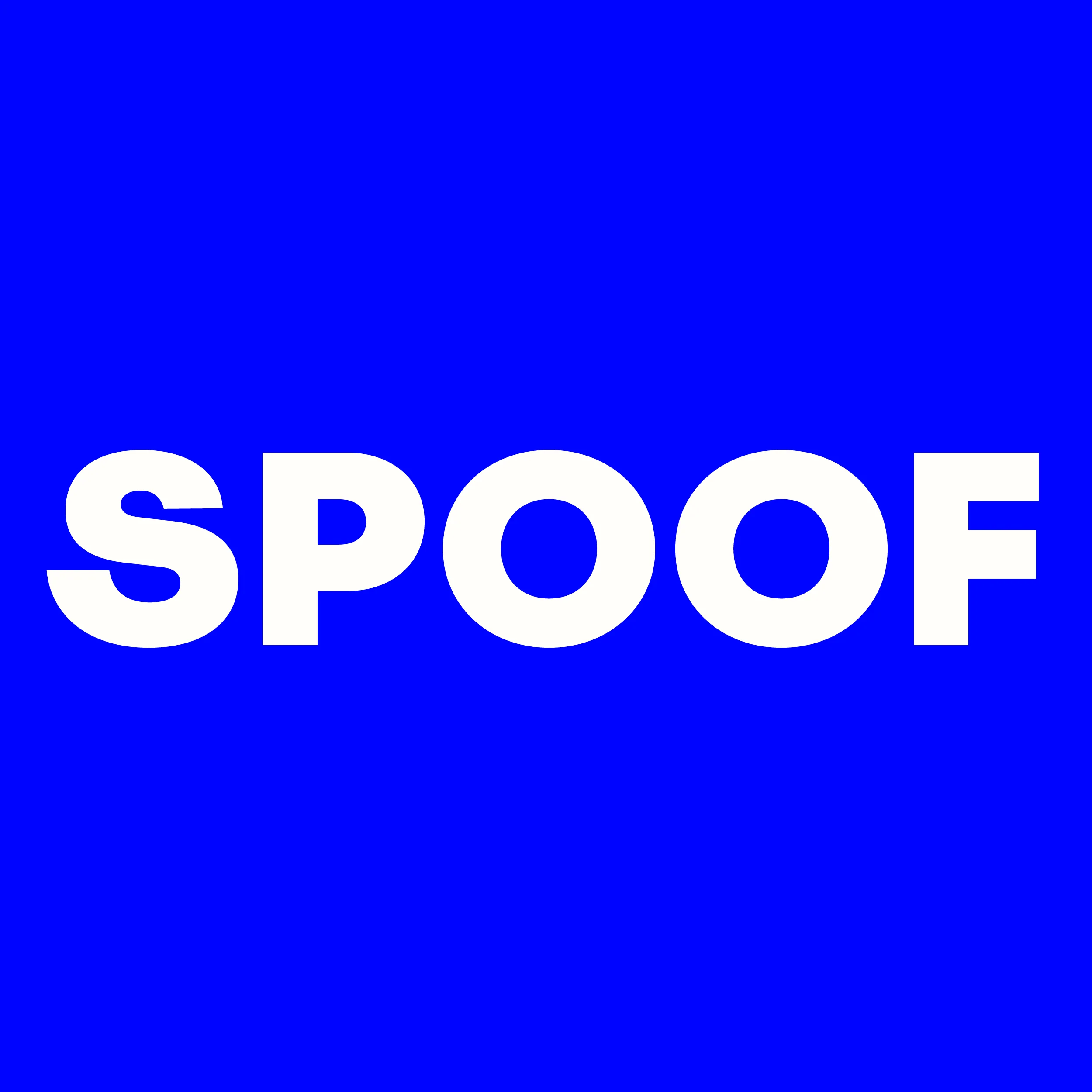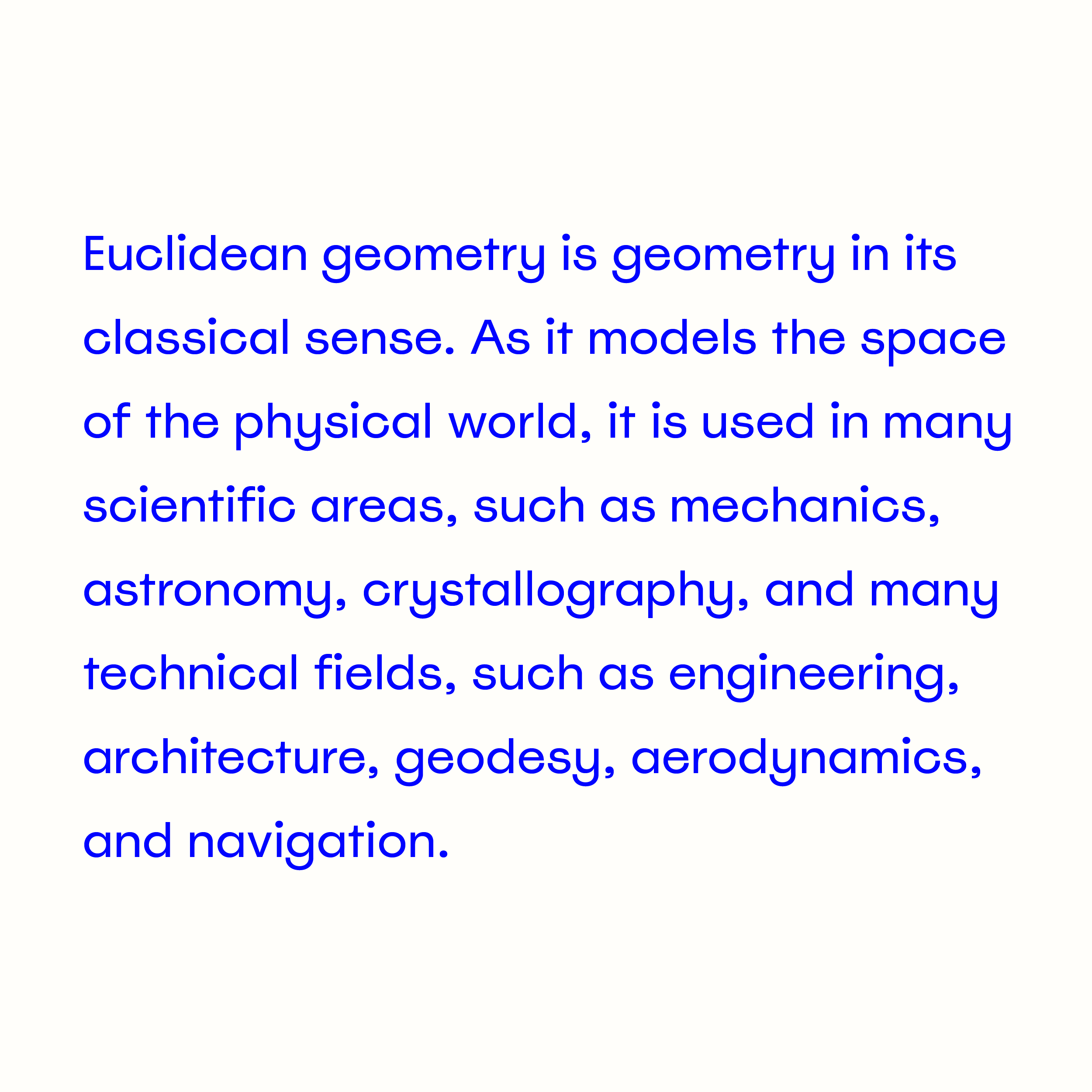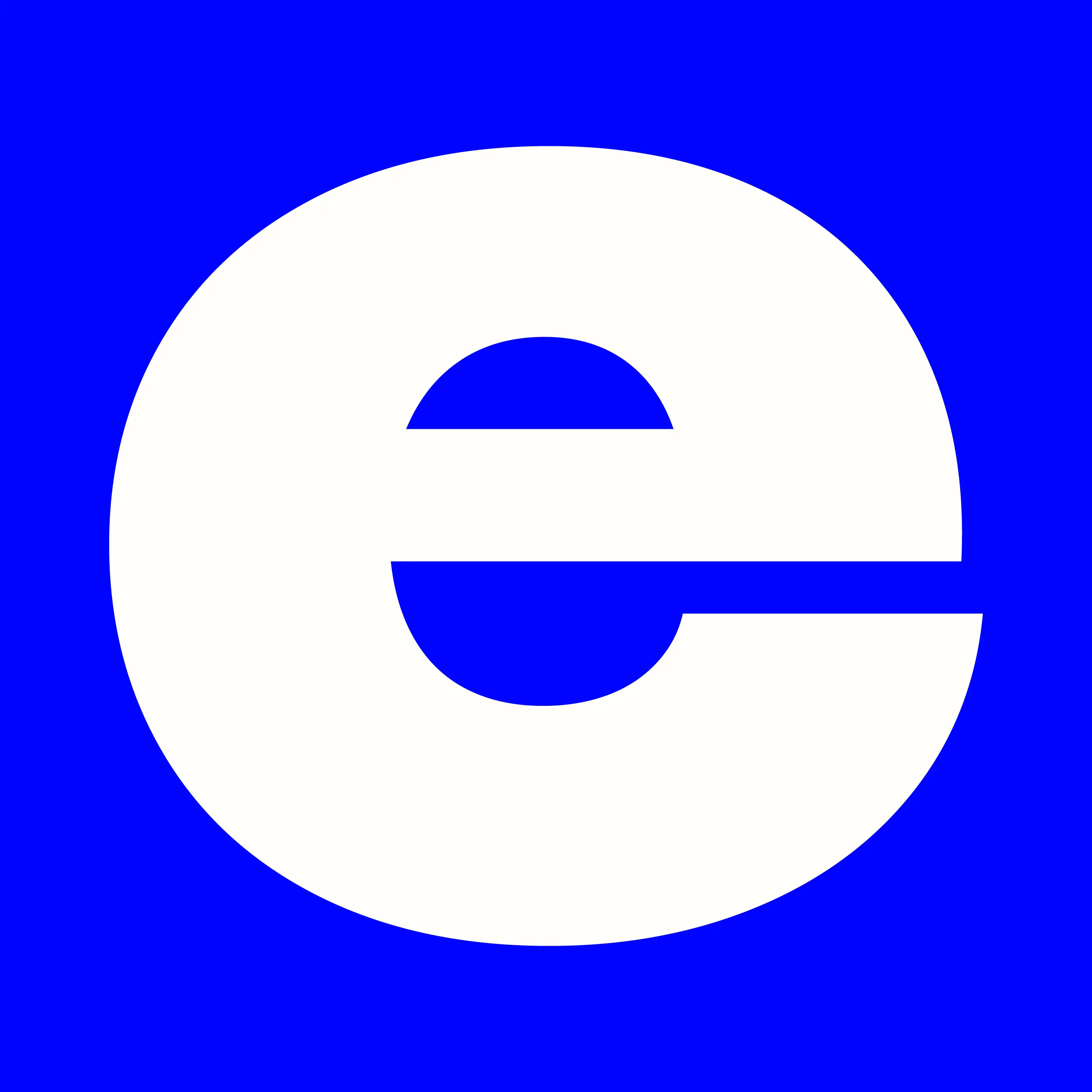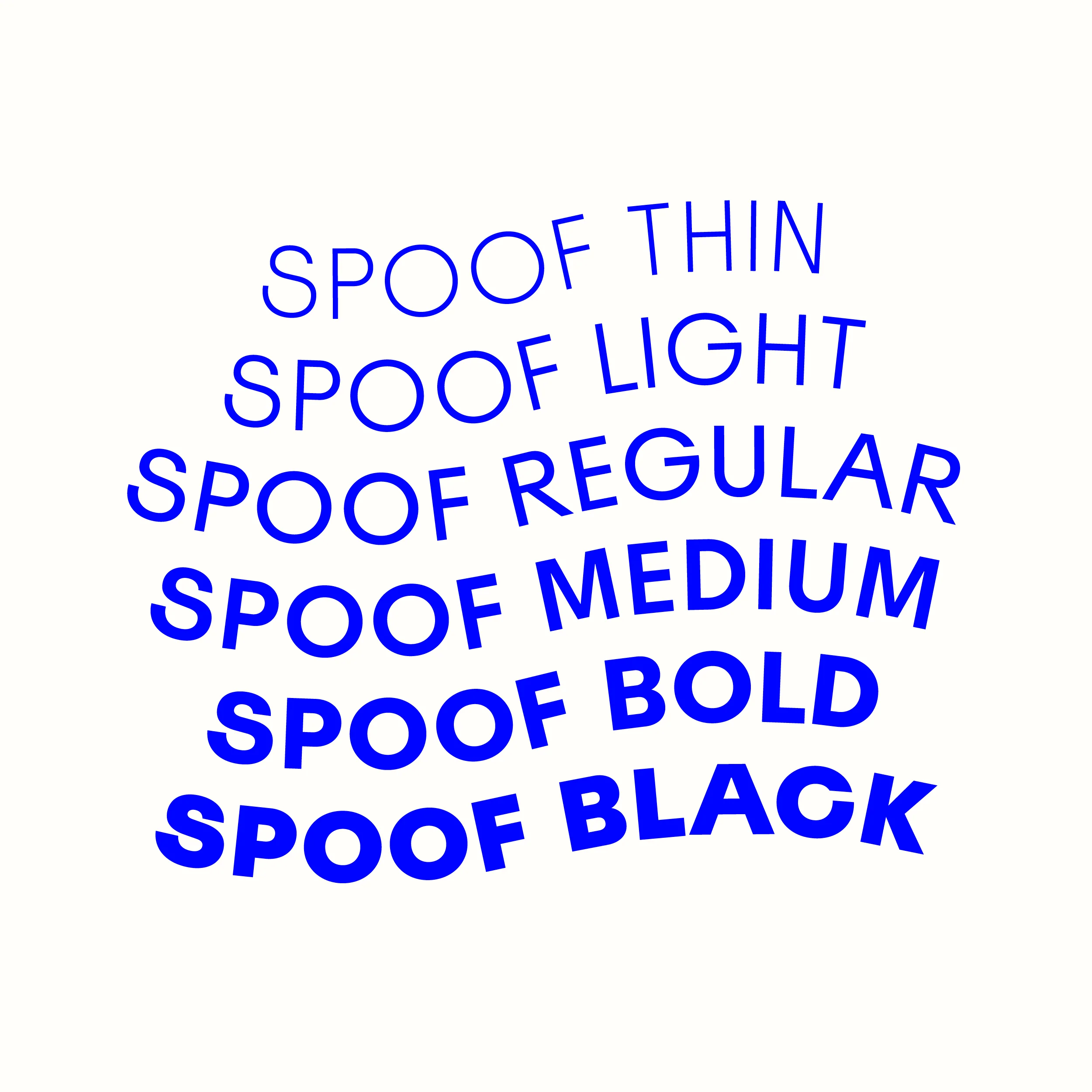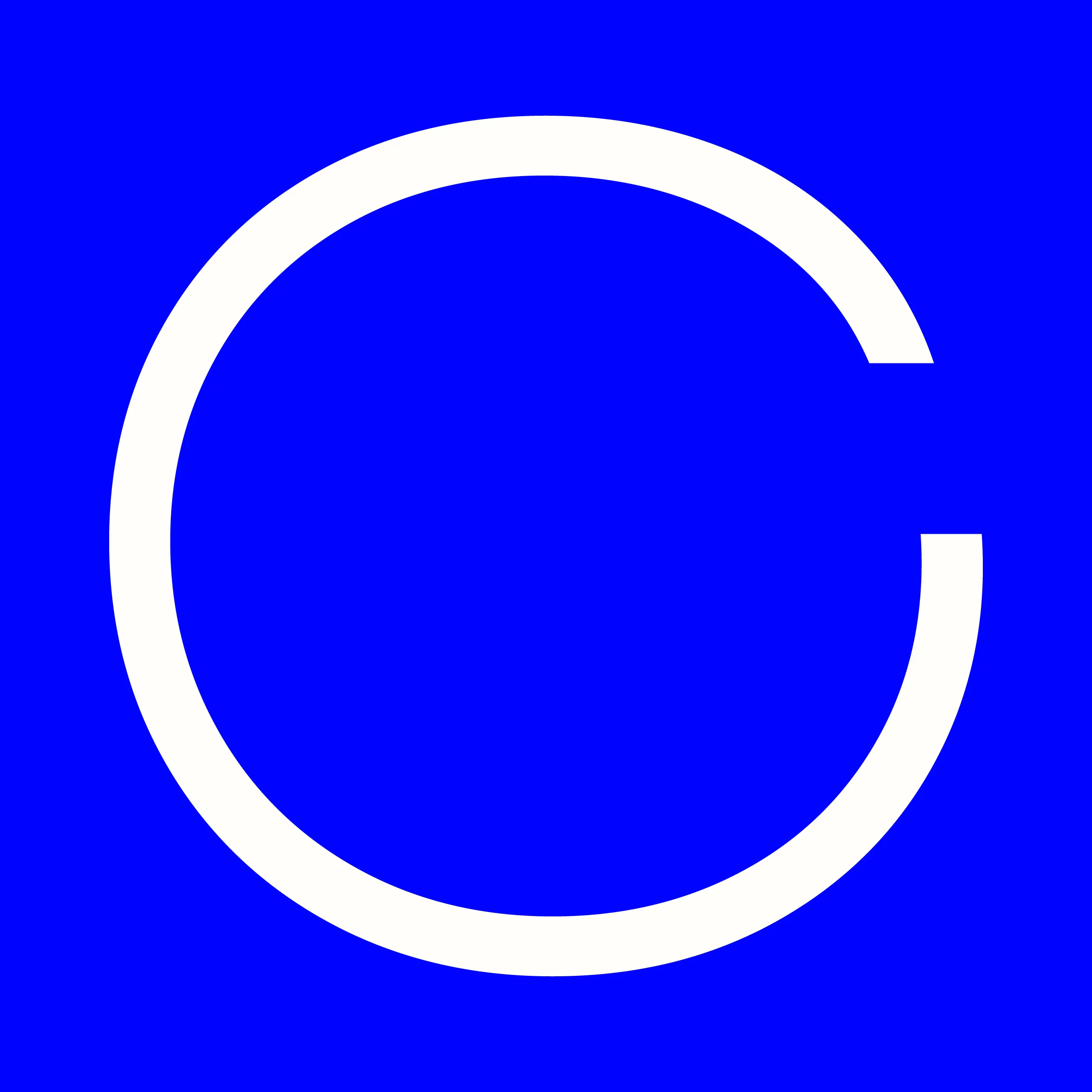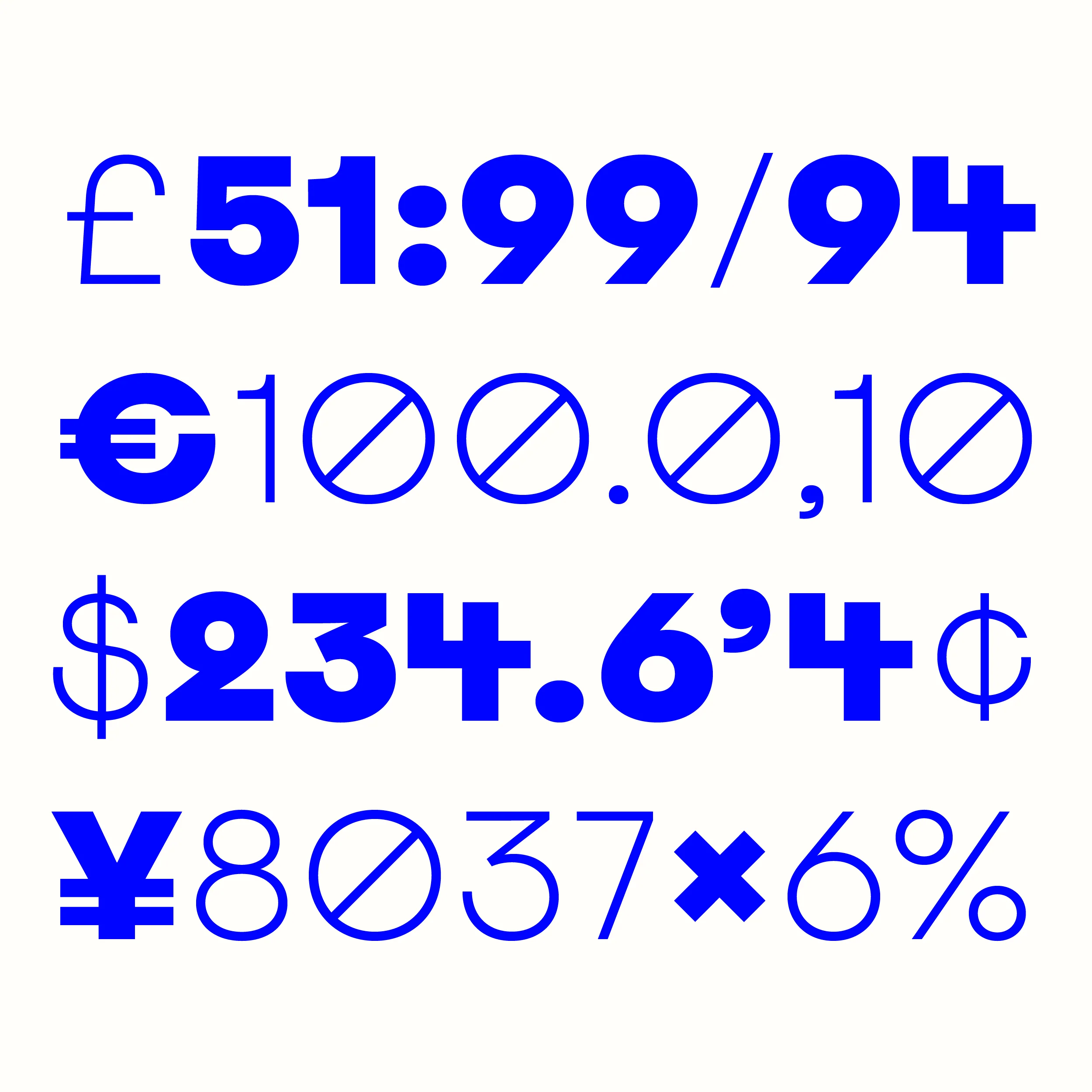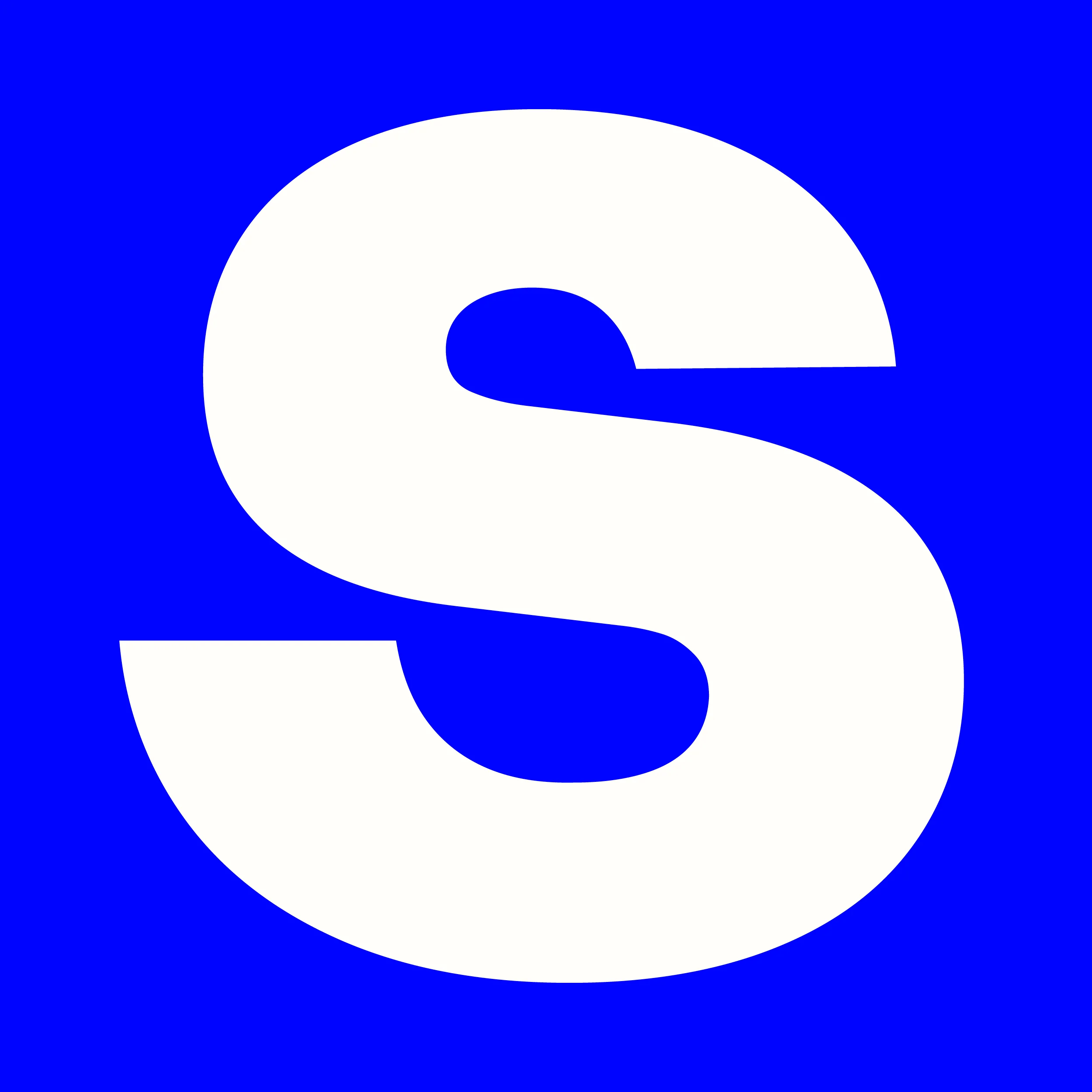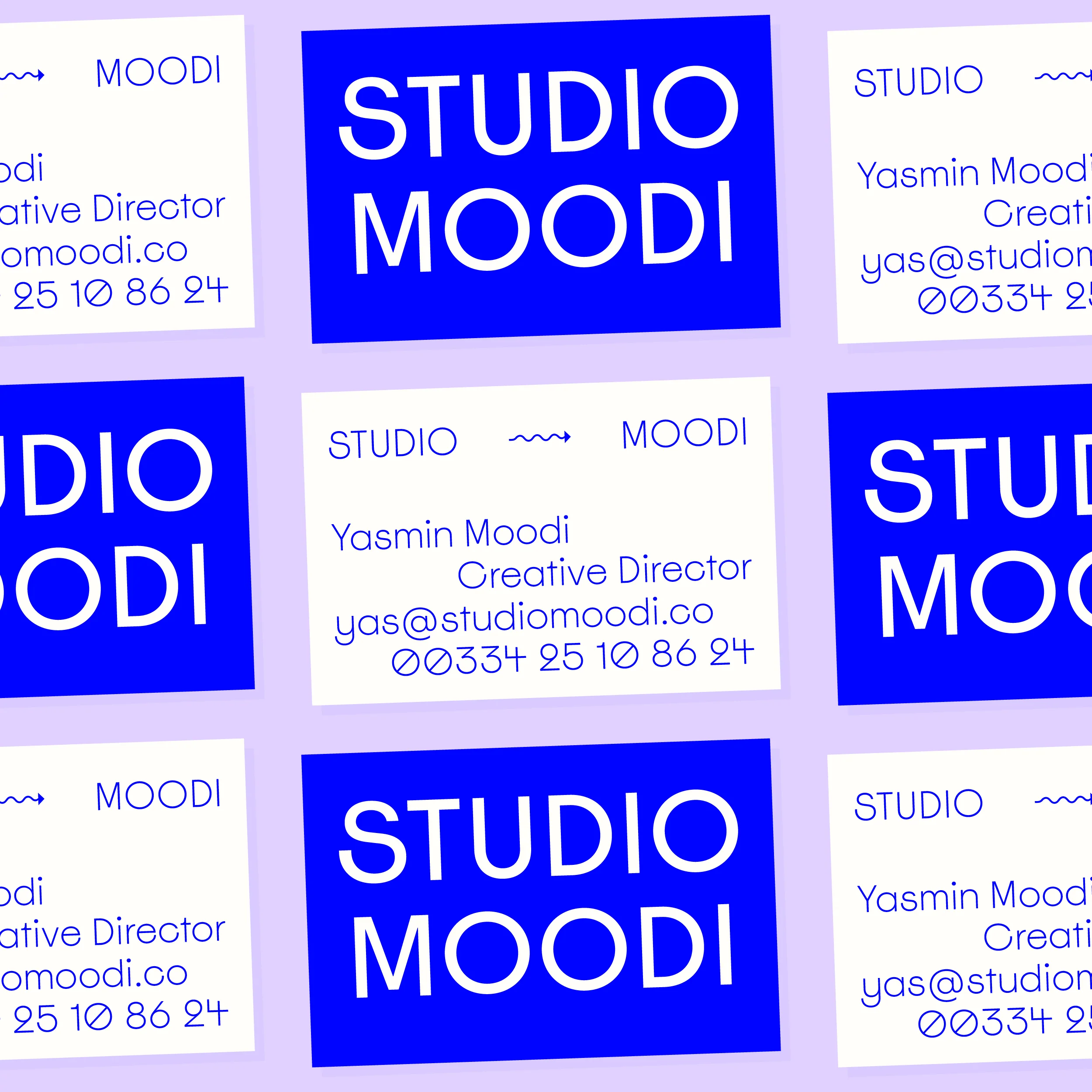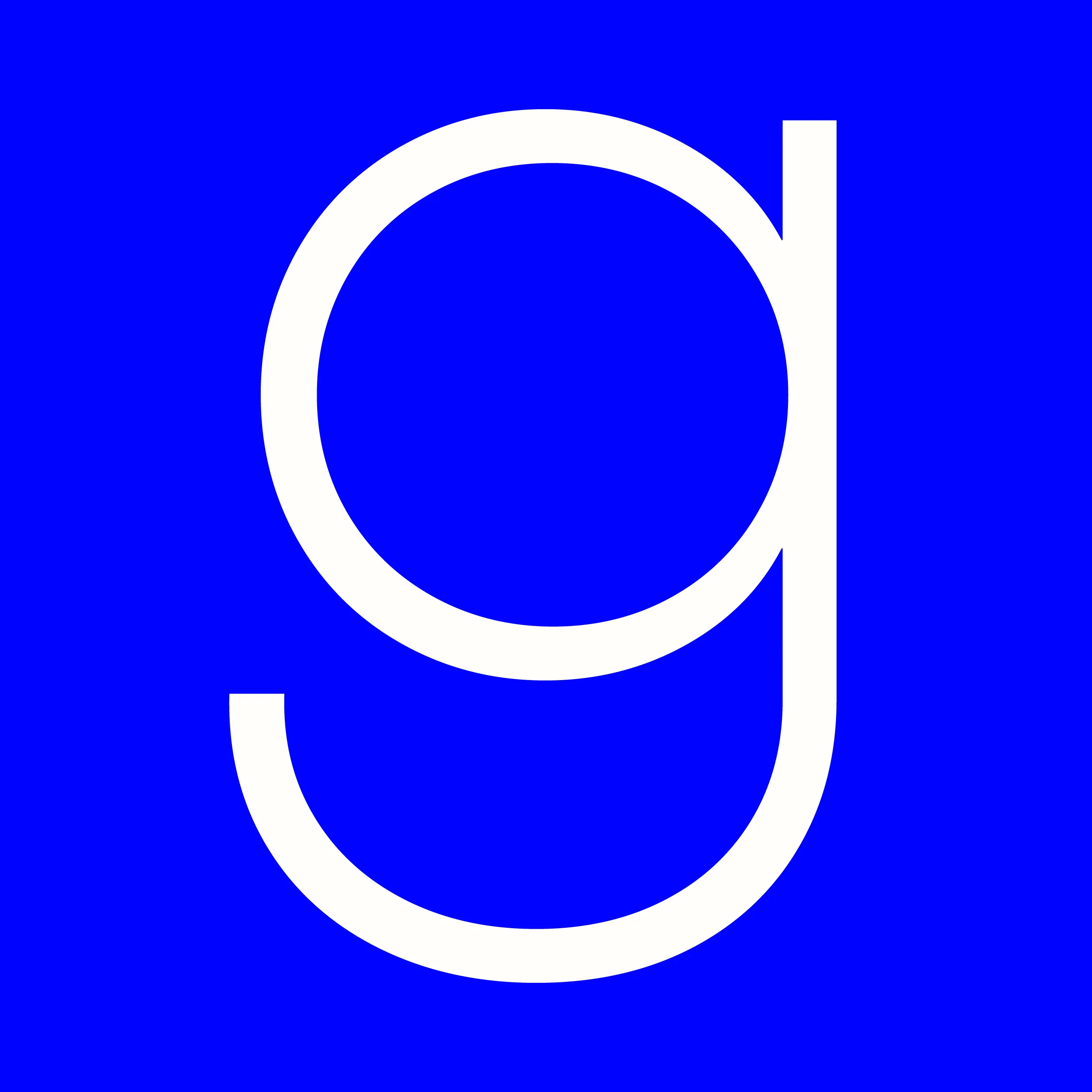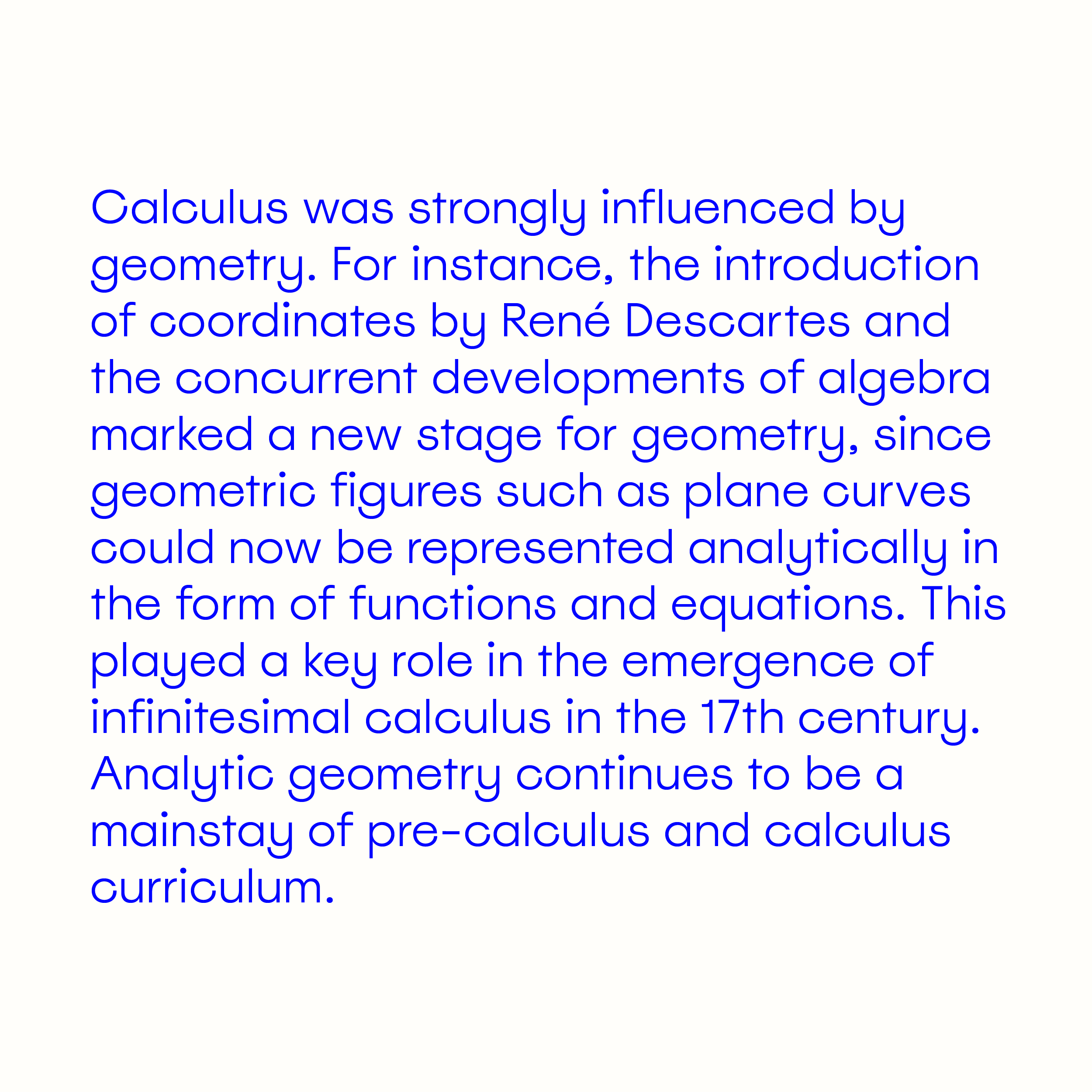
Spoof
Spoof is an irreverent typeface that playfully nods to rationalist predecessors like Futura, Neuzeit Grotesk, and Avant-Garde, while daringly subverting the norms of geometric sans styles. Its exaggerated proportions and grotesque elements defy strict geometry, injecting a sense of whimsy and intrigue.
While initially presenting a facade of calm uniformity with its strict geometry and orthogonal terminals, Spoof quickly disrupts this illusion. Uncomfortably tight apertures, unbalanced forms, and an occasional ungainly underbite in open-bowled glyphs add to its gawkish charm. This unconventional design creates a distinct and captivating aesthetic that challenges traditional notions of precision.
Spoof
Spoof is an irreverent typeface that playfully nods to rationalist predecessors like Futura, Neuzeit Grotesk, and Avant-Garde, while daringly subverting the norms of geometric sans styles. Its exaggerated proportions and grotesque elements defy strict geometry, injecting a sense of whimsy and intrigue.
While initially presenting a facade of calm uniformity with its strict geometry and orthogonal terminals, Spoof quickly disrupts this illusion. Uncomfortably tight apertures, unbalanced forms, and an occasional ungainly underbite in open-bowled glyphs add to its gawkish charm. This unconventional design creates a distinct and captivating aesthetic that challenges traditional notions of precision.
Spoof is an irreverent typeface that playfully nods to rationalist predecessors like Futura, Neuzeit Grotesk, and Avant-Garde, while daringly subverting the norms of geometric sans styles. Its exaggerated proportions and grotesque elements defy strict geometry, injecting a sense of whimsy and intrigue.
While initially presenting a facade of calm uniformity with its strict geometry and orthogonal terminals, Spoof quickly disrupts this illusion. Uncomfortably tight apertures, unbalanced forms, and an occasional ungainly underbite in open-bowled glyphs add to its gawkish charm. This unconventional design creates a distinct and captivating aesthetic that challenges traditional notions of precision.